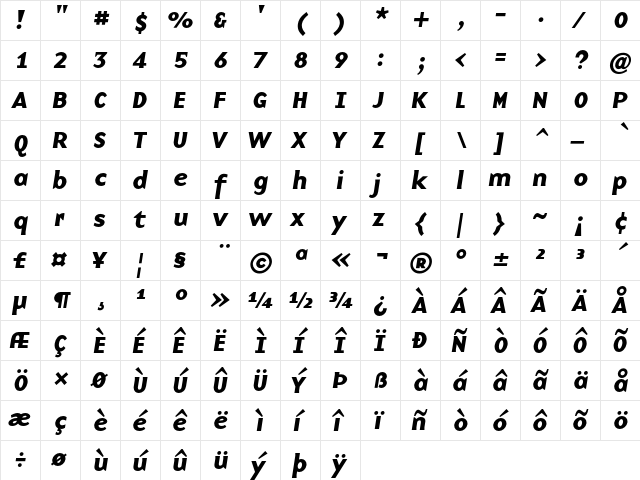
BaseNine Bold Italic
Design Context for BaseNine Typeface
BaseNine is a composed and adaptable typeface that performs quietly and consistently across a wide range of design contexts. Its italic angle brings a sense of urgency and motion to the letterforms. The heavy weight commands attention and anchors typographic hierarchies.
Pro Tip: Use BaseNine for emphasis, pull quotes, and subheadings where its slanted energy can add rhythm to the layout.